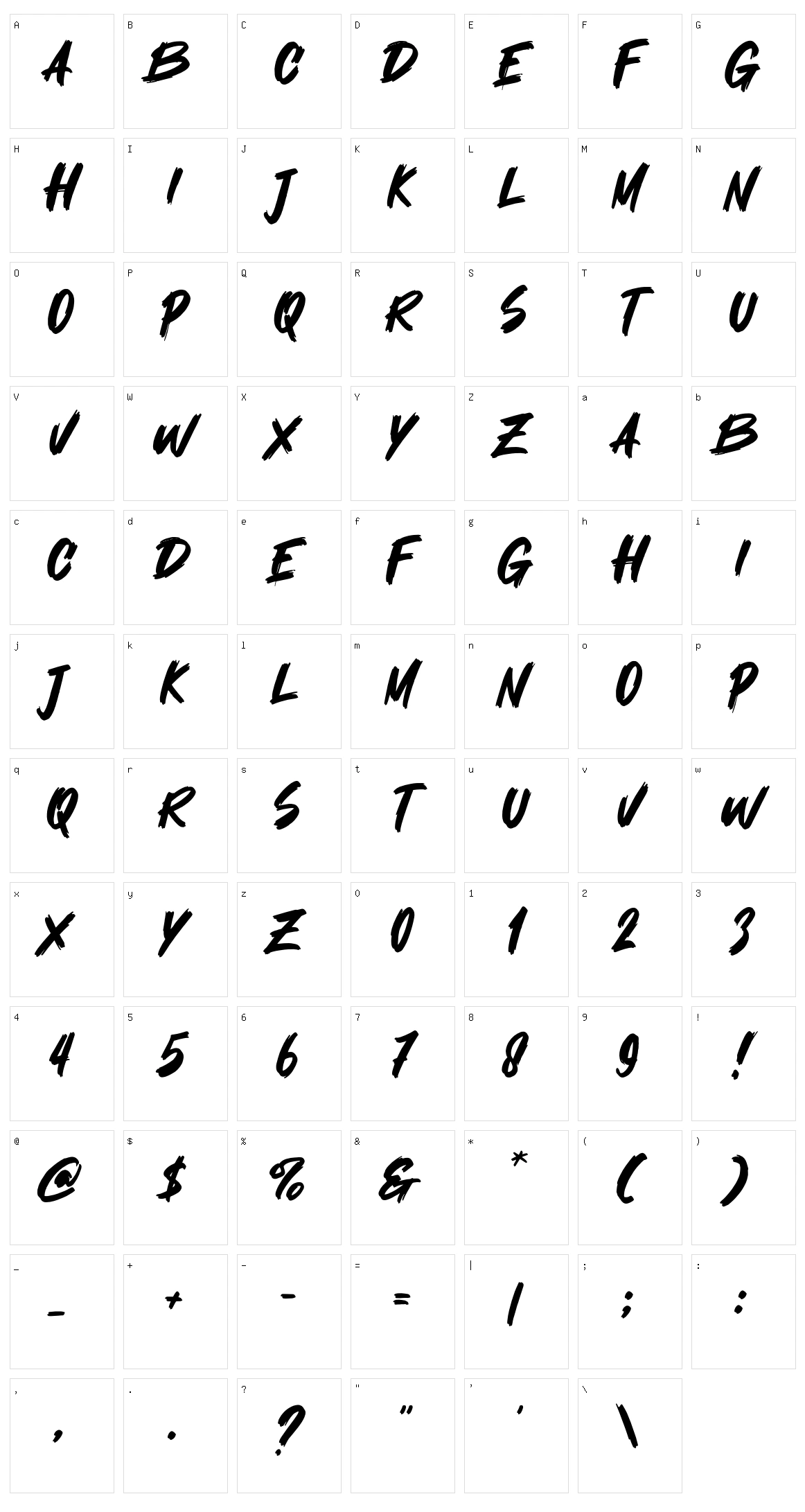
The free font Silent Phobia is carefully designed by Khurasan, showcasing a thoughtful balance of creativity and usability and falls under the Horror font style. When you download the ZIP file, it contains only 639.98 KB of font files, making it lightweight and quick to download. Please review the license details below to understand permitted usage and distribution rights. If license information is not available, we recommend using this font for personal projects only or contacting the author directly for commercial usage permissions.